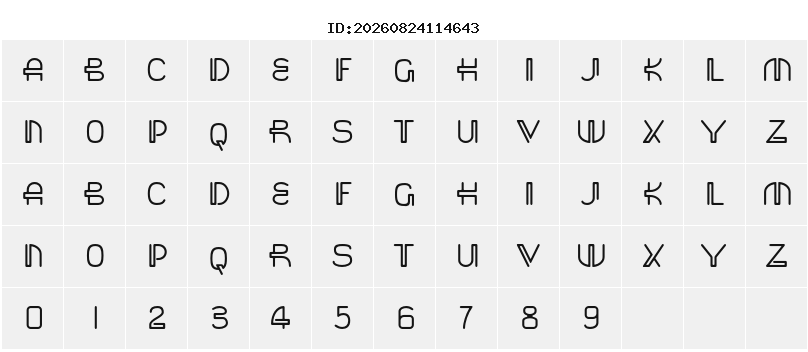
• Font Name: Saisa
• Full Font Name: Saisa
• Manufacturer: Toto
• Description: Based on an alphabet on page 61 of 101 Alphabets by W. Ben. Hunt and Ed. C. Hunt published by The Bruce Publishing Company, New York, 1958. Toto Kyusi, Pilipinas toto@ispx.com.ph + to22to@gmail.com November 26, 2011
About Saisa.otf
Saisa.otf is a modern, elegant sans-serif font designed for ultimate readability and visual harmony. Perfect for branding, headlines, web design, and print materials.